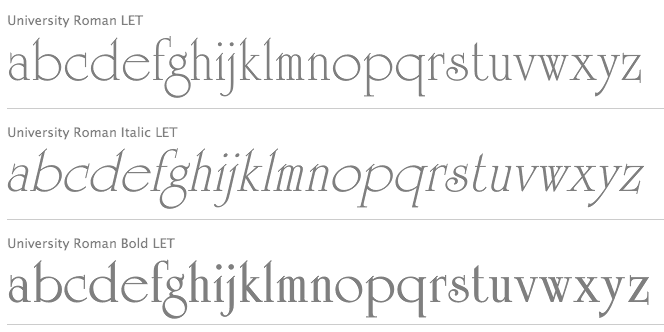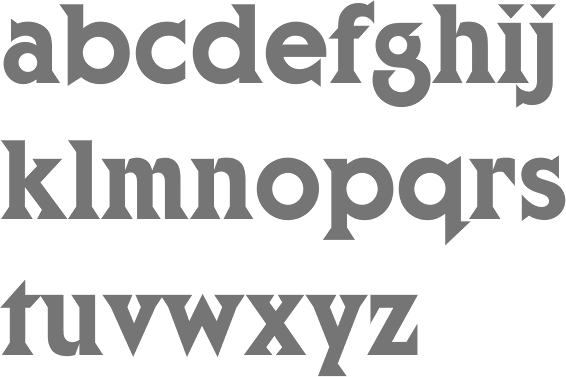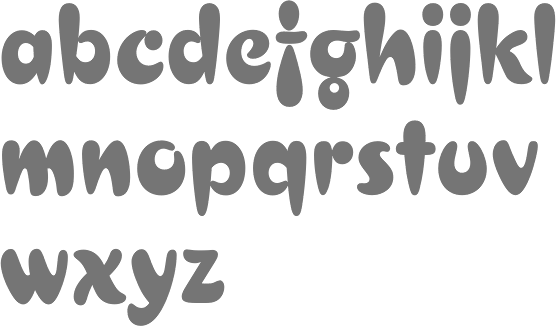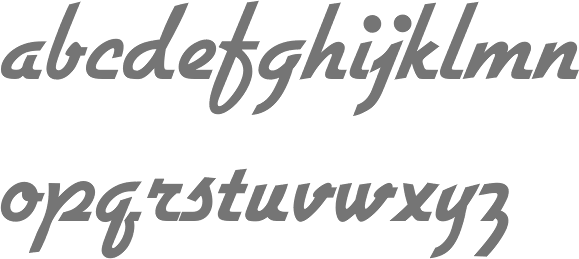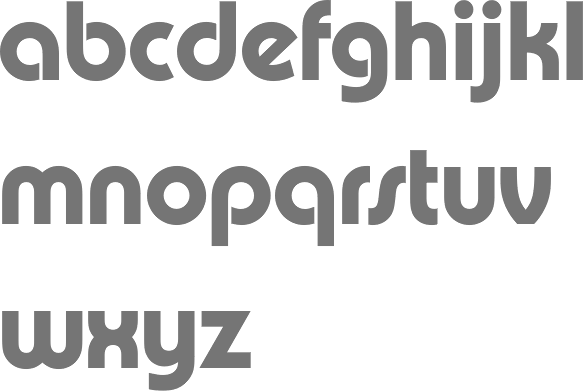
Photo and film type era
Luc Devroye
A. Bihari
Creator of typefaces at VGC, such as Aase (1977), Round Black (1977), DoublePipe(1975), and Corvina Black (1973). Corvina Black was revived and modified by Patrick Griffin in 2005 as Gaslon (Canada Type). Klingspor link. [Google] [MyFonts] [More]  ⦿
A. Jaget
Designer of Jaget Doron and Jaget Rina (VGC). [Google] [More]  ⦿
A. Mailay
Creator of typefaces at VGC, such as the rounded sans face Arpad (1971). Arpad was modernized and extended by Jonathan Hill in 2010 as Brion. [Google] [More]  ⦿
Aaron Burns
An expert typographer from the film type era, he set up a type division at Rapid Typographers. There he helped promote the Typositor, or Photo Typositor (invented in Miami by Murray Friedel in 1959), which improved over the first photo type machine, the Rutherford. Rapid Typographers organized the Visual Graphics Corporation (or VGC) to make the best use of this new technology. Peter bain writes: The owners of Rapid Typographers were impressed enough by Friedels invention to organize the new Visual Graphics Corporation. Initially the endeavor split its headquarters between the existing typographers address in midtown Manhattan and sunny South Florida. The Photo Typositor allowed an operator to see composition letter-by-letter as it was exposed, unlike the Rutherford. It also offered many of Photo-Letterings capabilities at a reduced price. The Typositor, as it became known, ingeniously used the same 2-inch film font format as the Filmotype. It speeded fashionably tight letter and word spacing, achievable in metal only with a razor blade after proofing, and had none of the size limitations of foundry type. VGC and its backers proceeded to convert metal faces to film, and pursued licensing with typefounders. Burns guided the development of the type library at Rapid Typographers / VGC. In 1970, ITC was founded by Aaron Burns, Herb Lubalin and Edward Rondthaler (from Photo-Lettering Inc.). [Google] [MyFonts] [More]  ⦿
ABC Types (was: Absolutetype)
[Tony Mayers]
ABC Types is Tony Mayers' foundry. Identifont link. Tony produced film titles in London's West End. He learned the craft of phototypesetting. In 1979, he moved to Manchester, where he founded The Quick Brown Fox Company. He created Concept Crisis (grunge face), Concept Sans, De-Generation, Generation Gothic, Generation Graffiti, Generation Headline, Generation Lost, Generation Open, Generation Pixel, Generation Uncial, Monolith Roman, Monolith Sans, Poster Gothic, Ranger, Society, and Text Gothic. Before ABC Types, he ran Absolutetype, where he sold the faces mentioned above. The typefaces are now digitally available from Cedars, PA-based International Type Founders (ITF), which was created by Steve Jackaman. The latest address for ABC Types is in Cedars, PA. It is identical to that of ITF. Tony Mayers has died. Ascender also sells its collection. [Google] [MyFonts] [More]  ⦿
Ad Werner
Dutch type designer from the phototype era. His paperclip typeface from 1974 inspired Afrojet to create the FontStruction Paperclip (2010), and Wilson Thomas followed that up with Werner Paperclip (2010). [Google] [More]  ⦿
Adrian Frutiger
Famous type designer born in 1928 in Unterseen, Switzerland. He closely cooperates with Linotype-Hell AG, after having been artistic director at Deberny-Peignot in Paris since 1952. He established his own studio in 1962 with André Gürtler and Bruno Pfaftli. Art director for Editions Hermann, Paris 1957 to 1967. Frutiger now lives near Bern, Switzerland, and is primarily working with woodcuts. In 2009, Heidrun Osterer and Philipp Stamm coedited Adrian Frutiger Typefaces The Complete Works (Birkhäuser Verlag), a 460-page opus based on conversations with Frutiger himself and on extensive research in France, England, Germany, and Switzerland. Quote: Helvetica is the jeans, and Univers the dinner jacket. Helvetica is here to stay. He designed over 100 fonts. Here is a partial list:
• Président (Deberny&Peignot, 1954). Digitized by Linotype in 2003.
• Delta.
• Phoebus (Deberny&Peignot, 1953).
• Element-Grotesk.
• Federduktus.
• Ondine (Deberny&Peignot, 1953-1954).
• Méridien (Deberny&Peignot, 1955-1957). Digitized by Adobe/Linotype in 1989.
• Caractères Lumitype.
• Univers (Deberny&Peignot, 1957). About the name, Frutiger wrote I liked the name Monde because of the simplicity of the sequence of letters. The name Europe was also discussed; but Charles Peignot had international sales plans for the typeface and had to consider the effect of the name in other languages. Monde was unsuitable for German, in which der Mond means "the moon". I suggested "Universal", whereupon Peignot decided, in all modesty, that "Univers" was the most all-embracing name!. Univers IBM Composer followed. In 2010, Linotype published Univers Next, which includes 59 Linotype Univers weights and 4 monospaced Linotype Univers Typewriter weights, and can be rented for a mere 2675 Euros.
• Egyptienne F (1955, Fonderie Deberny&Peignot; 1960, for the Photon/Lumitype machine).
• Opéra (1959-1961, Sofratype).
• Alphabet Orly (1959, Aéroport d'Orly).
• Apollo (1962-1964, Monotype): the first type designed for the new Monotype photosetting equipment.
• Alphabet Entreprise Francis Bouygues.
• Concorde (1959, Sofratype, with André Gürtler).
• Serifen-Grotesk/Gespannte Grotesk.
• Alphabet Algol.
• Serifa (1967-1968, Bauersche Giesserei). URW++ lists the serif family in its 2008 on-line catalog.
• OCR-B (1966-1968, European Computer Manufacturers Association).
• Alphabet EDF-GDF (1959, Électricité de France, Gaz de France).
• Katalog.
• Devanagari (1967) and Tamil (1970), both done for Monotype Corporation.
• Alpha BP (1965, British Petroleum&Co.).
• Dokumenta (1969, Journal National Zeitung Suisse).
• Alphabet Facom (1971).
• Alphabet Roissy (1970, Aéroport de Roissy Charles de Gaulle).
• Alphabet Brancher (1972, Brancher).
• Iridium (1972, Stempel).
• Alphabet Métro (1973, RATP): for the subway in Paris.
• Alphabet Centre Georges Pompidou. The CGP typeface (first called Beaubourg) used in the Centre Georges Pompidou from 1976-1994 is by Hans-Jörg Hunziker and Adrian Frutiger, and was developed as part of the visual identity program of Jean Widmer. It is said that André Baldinger digitized it in 1997.
• Frutiger (1975-1976, Stempel, with Hans-Jörg Hunziker). The modern Bitstream version is called Humanist 777. In 2001, Linotype published an update of its Frutiger family, Linotype Frutiger Next. A few years later, Frutiger Next Greek (with Eva Masoura) won an award at TDC 2006.
Edward Rondthaler
New Yorker, b. Bethlehem, PA, 1905. In 1936, Rondthaler and Harold Horman cofounded Photo-Lettering Inc in New York City. An excellent typographer, he cofounded ITC in 1970 with with Herb Lubalin and Aaron Burns. Editor/author of Alphabet thesaurus; a treasury of letter designs (1960, Reinhold, NY). Volume 3 was published in 1971. In 1975 he was awarded the TDC Medal, the award from the Type Directors Club. In 2007, House Industries made this funny clip. Sadly, Ed died in August 2009. [Google] [MyFonts] [More]  ⦿
Edwin Sisty